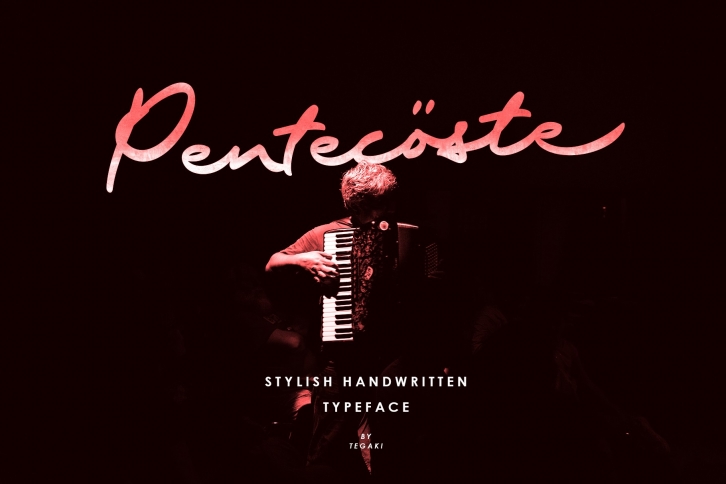
Pentecoste is a gorgeous font that was realeased on May 21, 2019. The font can be used in many style contexts and design environments. Perfect for invitations, magazines, websites, logos, and more! It was designed by tegaki and the file size is 5.9 MB. Thanks for checking out this font!